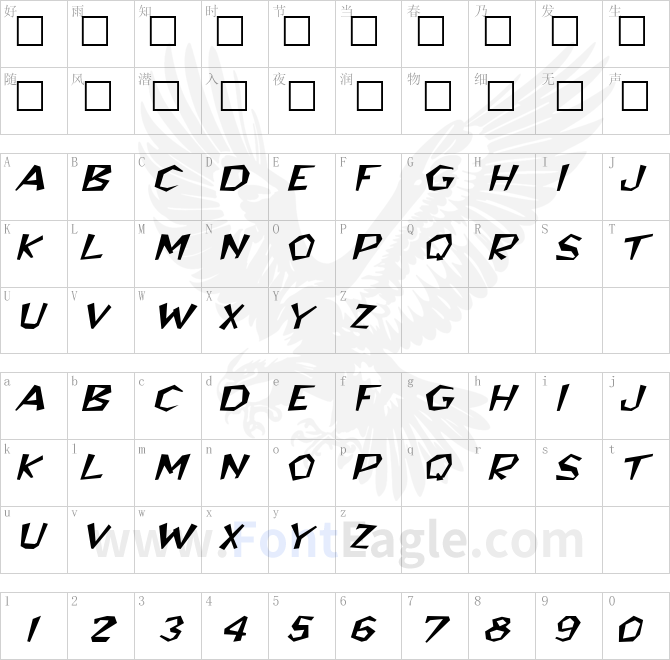
- Font name:BedrockWide
- Font Subfamily ID:Weatherly Systems, Inc. BedrockWide Italic
- Font Full Name:BedrockWide Italic
- Postscript:BedrockWideItalic